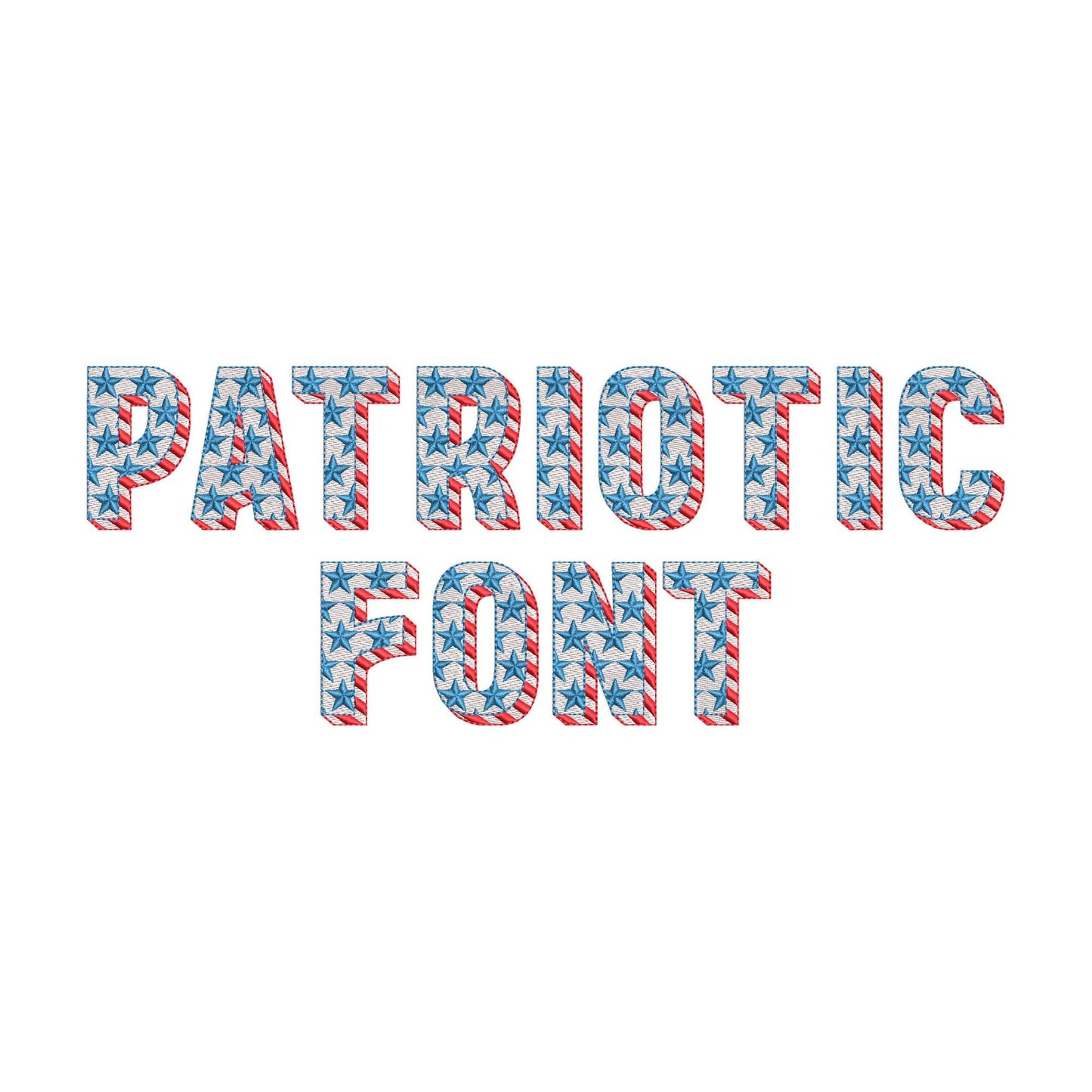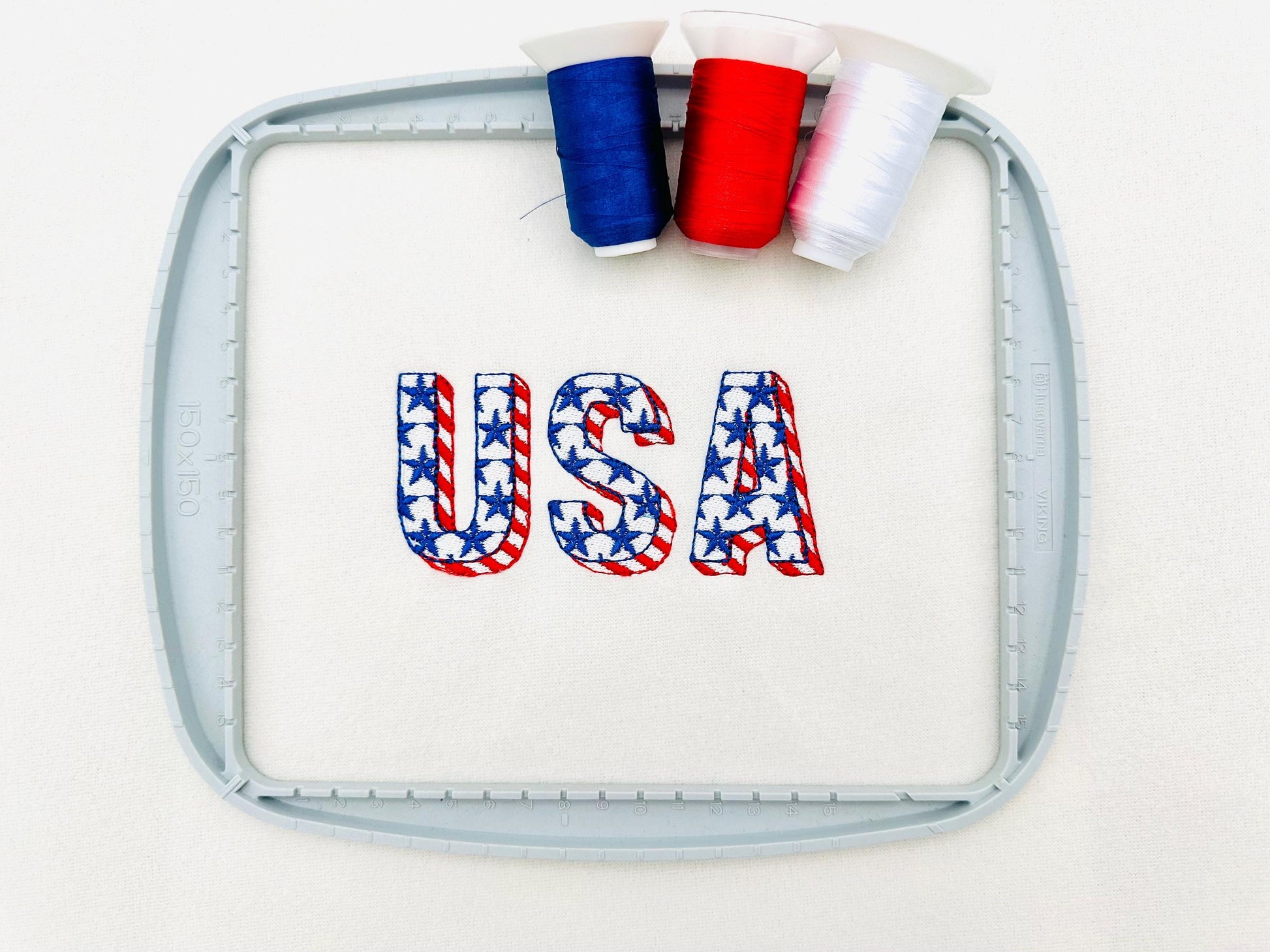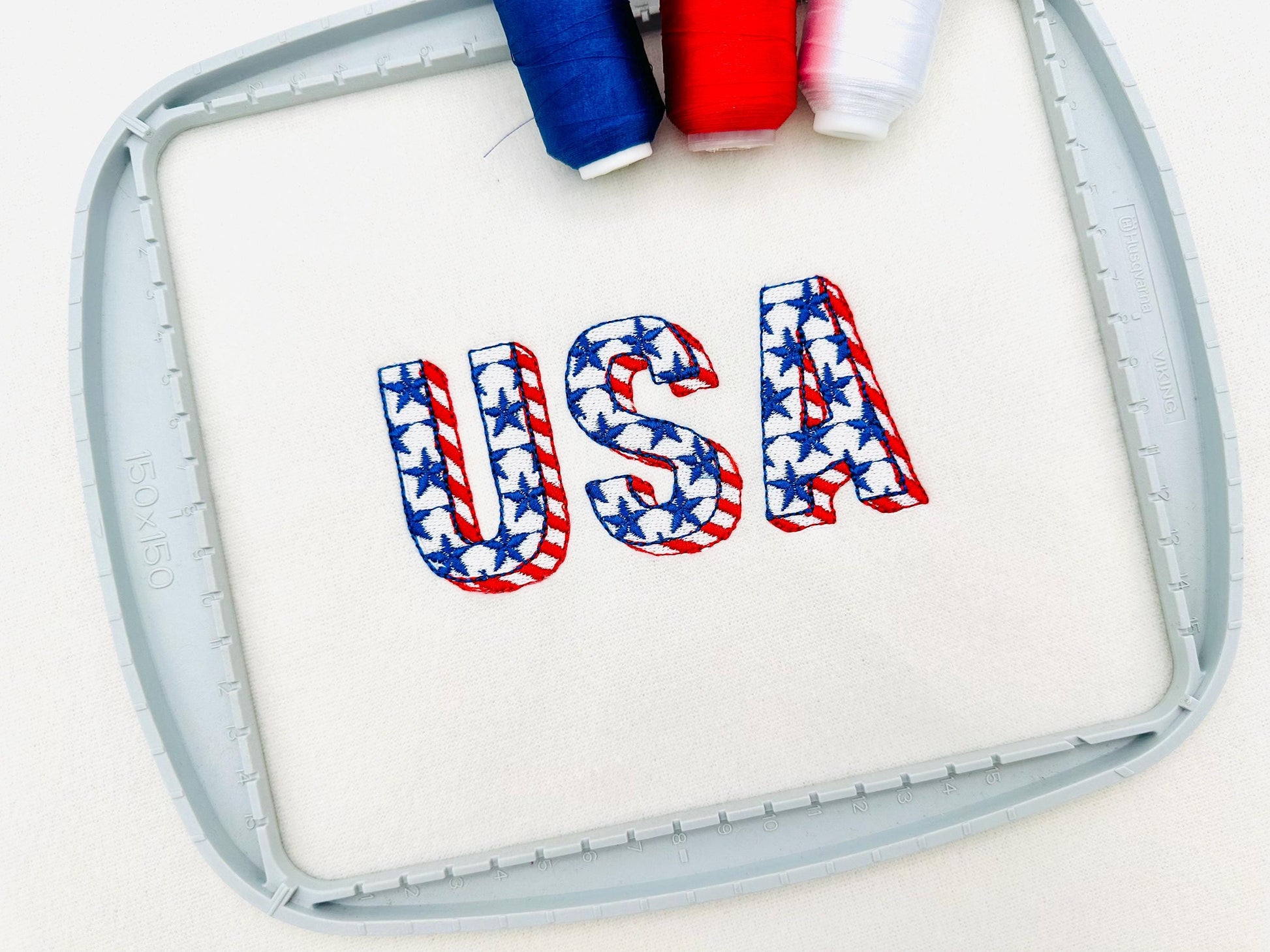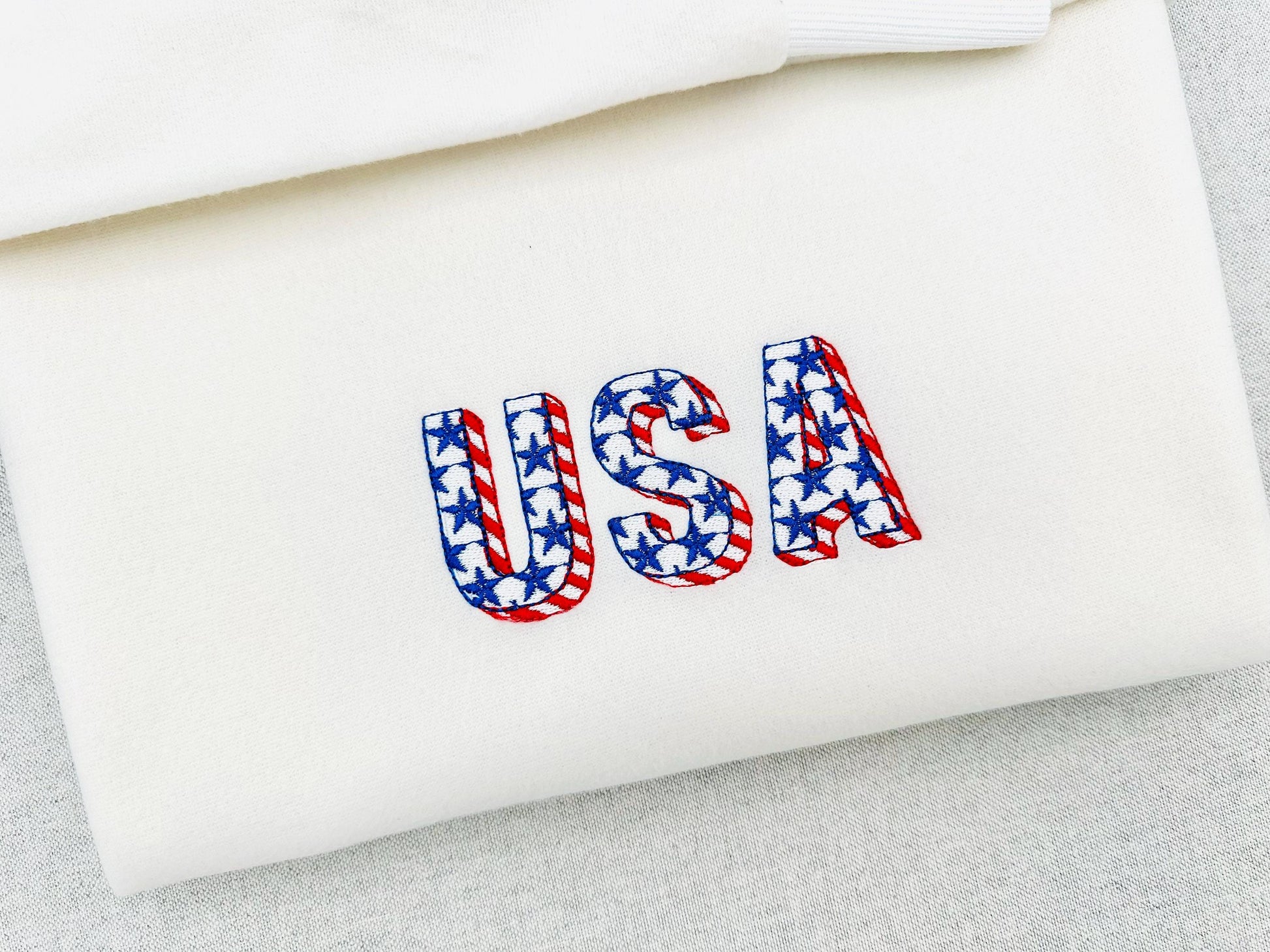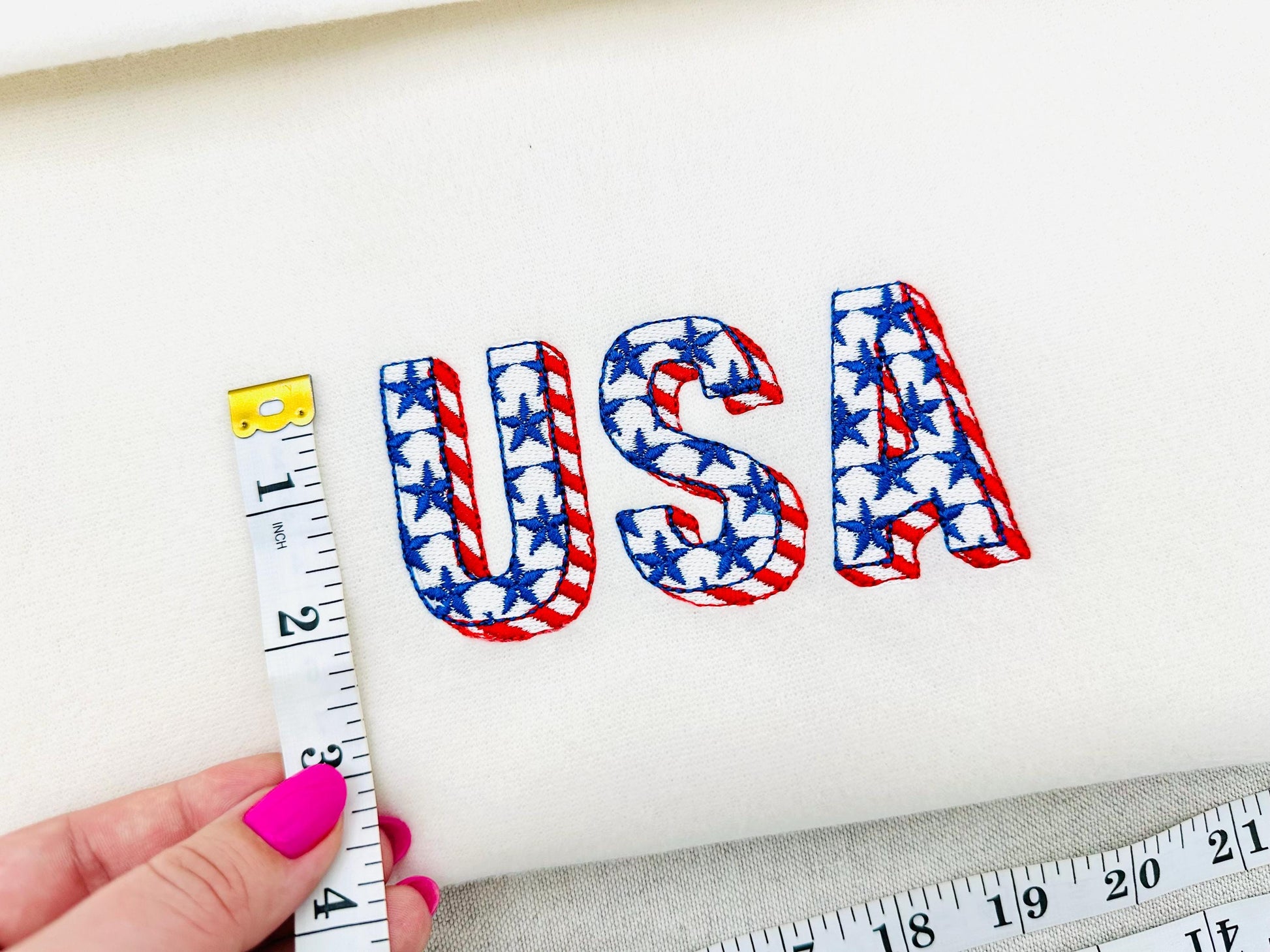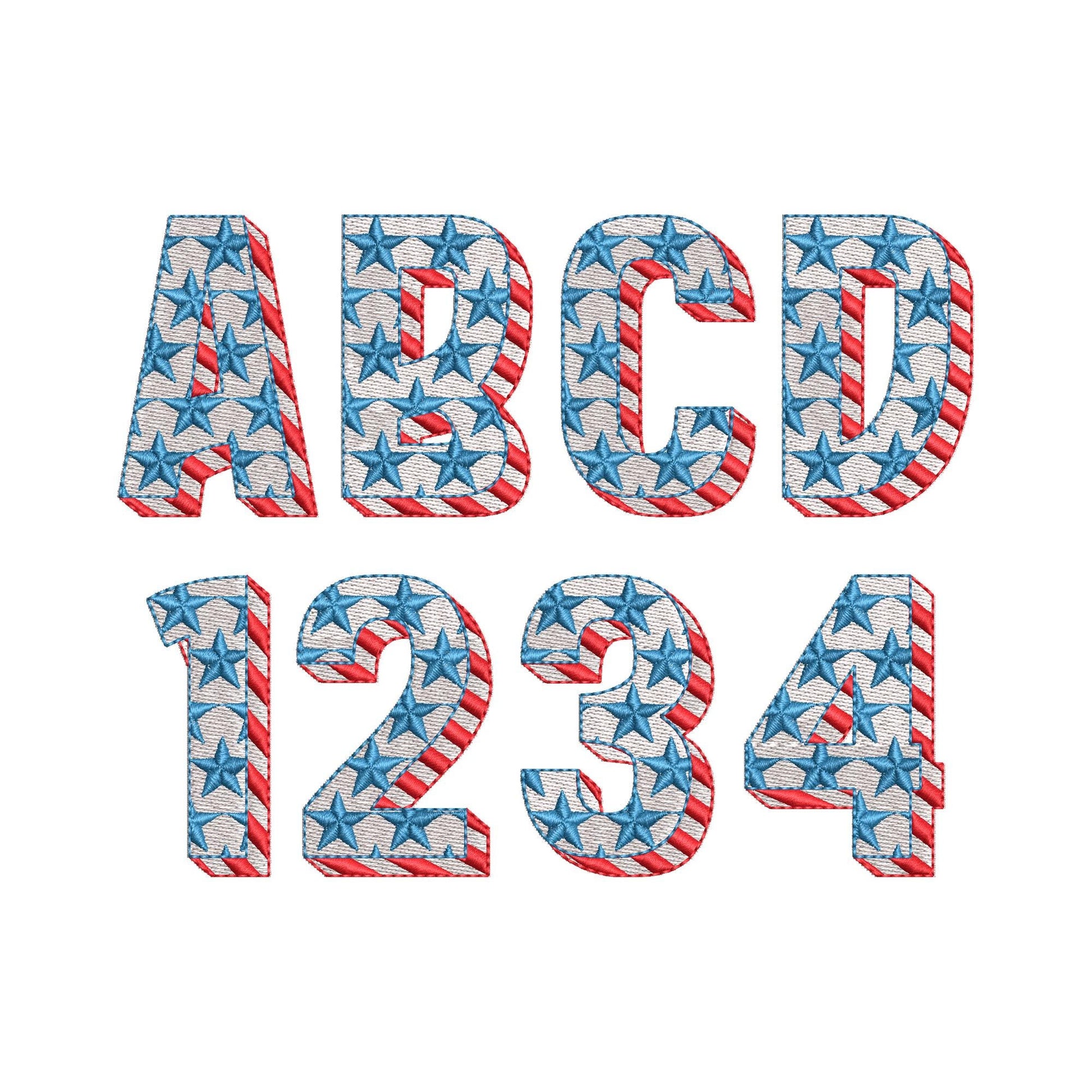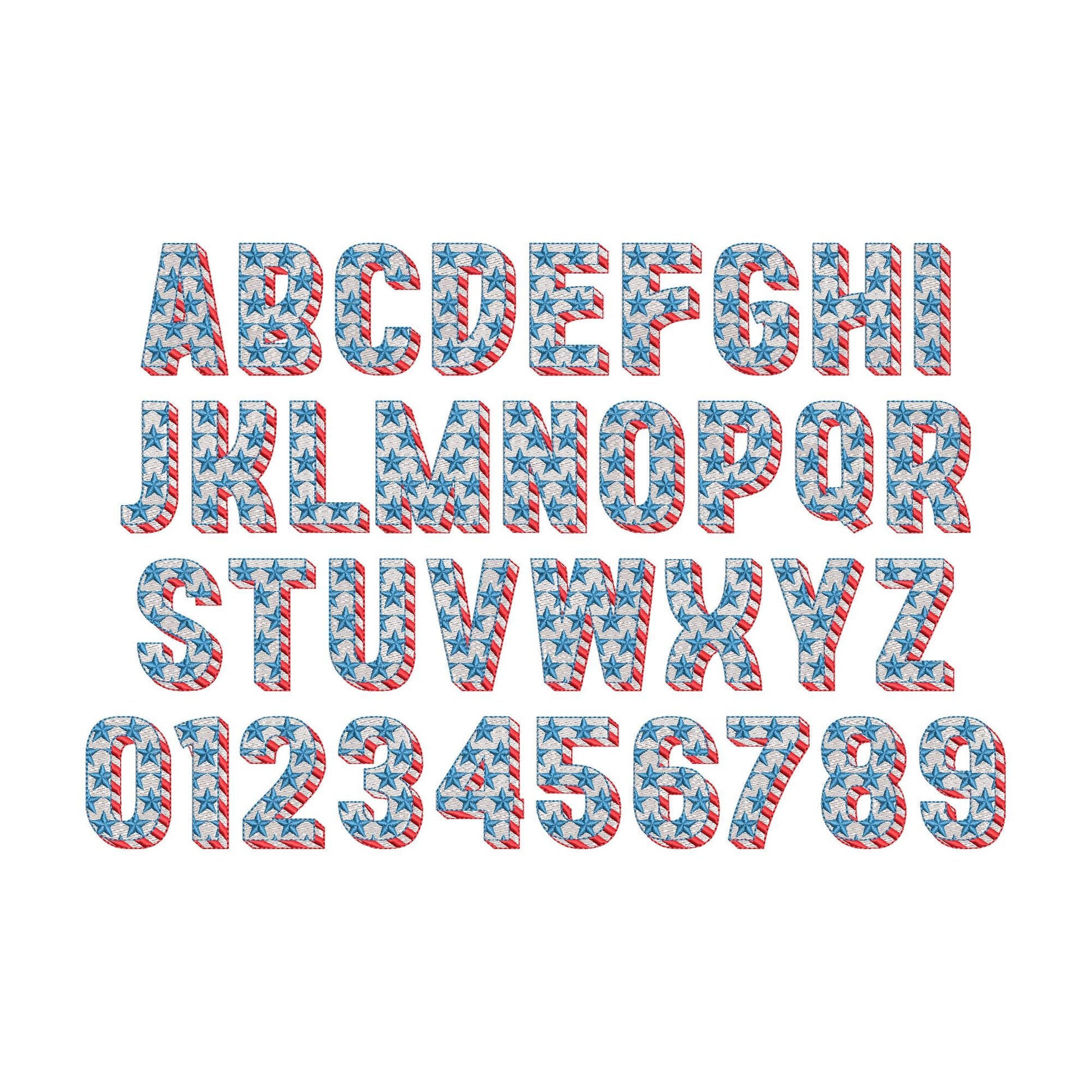
Patriotic Fill Stitch Font
The letters come in four sizes: 1.8, 2.2, 2.6 and 2.9 inches. Includes uppercase letters A-Z and numbers 0-9.
- Patriotic font: uppercase letters A-Z and numbers 0-9
- 4 letter sizes, 1.8 to 2.9 in